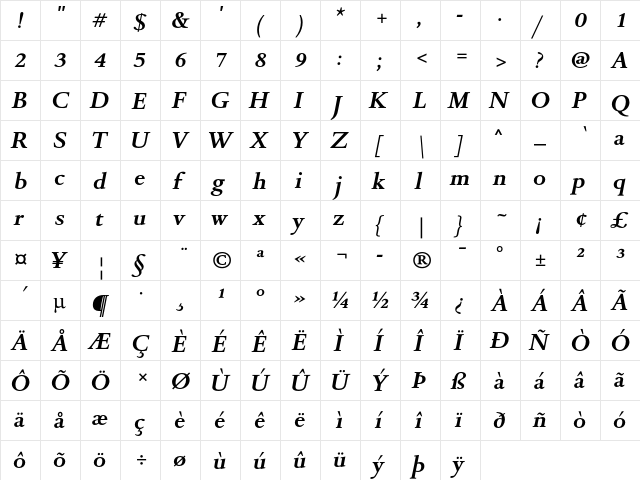
DTL Romulus T Bold Italic
Design Context for DTL Romulus Typeface
DTL Romulus is a composed and adaptable typeface that performs quietly and consistently across a wide range of design contexts. Its italic angle brings a sense of urgency and motion to the letterforms. Its bold stroke weight gives it real presence on the page.
Pro Tip: Try DTL Romulus for annotation and caption copy alongside an upright companion — the contrast in angle creates a dynamic but ordered typographic system.